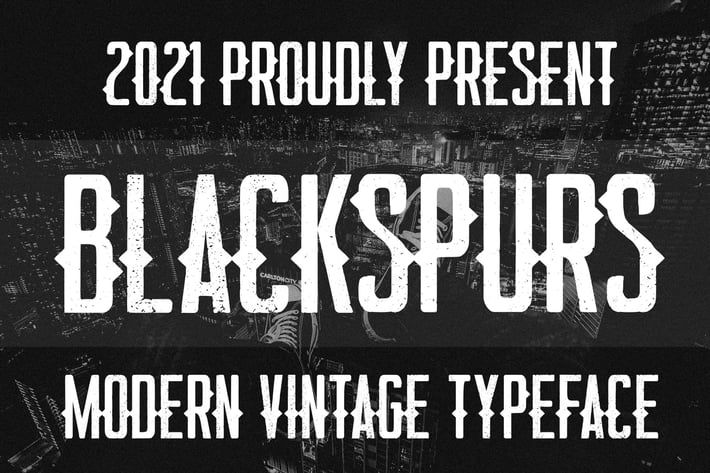
Blackspurs Vintage Font
Black Spurs is elegant vintage sans serif font. It can easily be matched to an incredibly large set of projects, so add it to your creative ideas and notice how it makes them stand out!